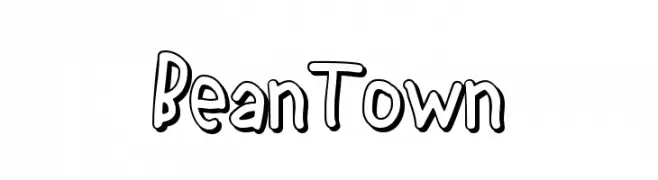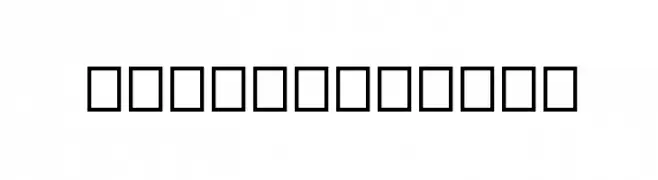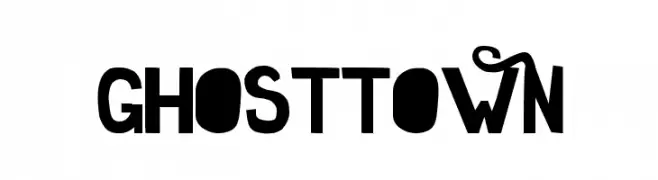
Invalid font display with missing characters.
A bold, playful font with quirky, uneven characters.
A playful, hand-drawn font with bold outlines and a cartoonish style.
A playful, hand-drawn font with a quirky and energetic style.